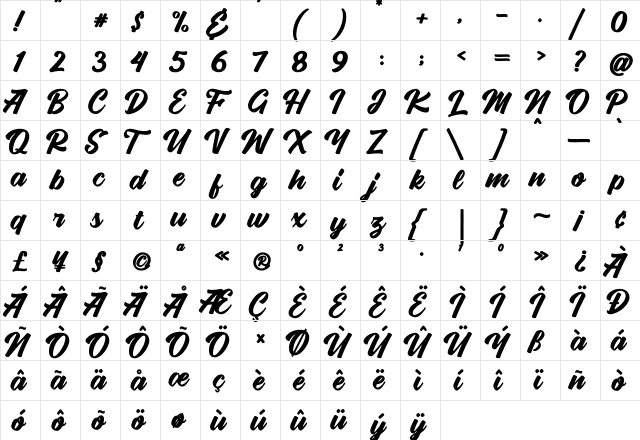
Vigrand Bold Rough Bold-Rough
Vigrand Bold Rough embraces imperfection — its rough, textured character adds raw authenticity to designs that want to feel lived-in and unconventional.
Suited to punk-influenced zines, underground music branding, streetwear, and raw, anti-corporate design.